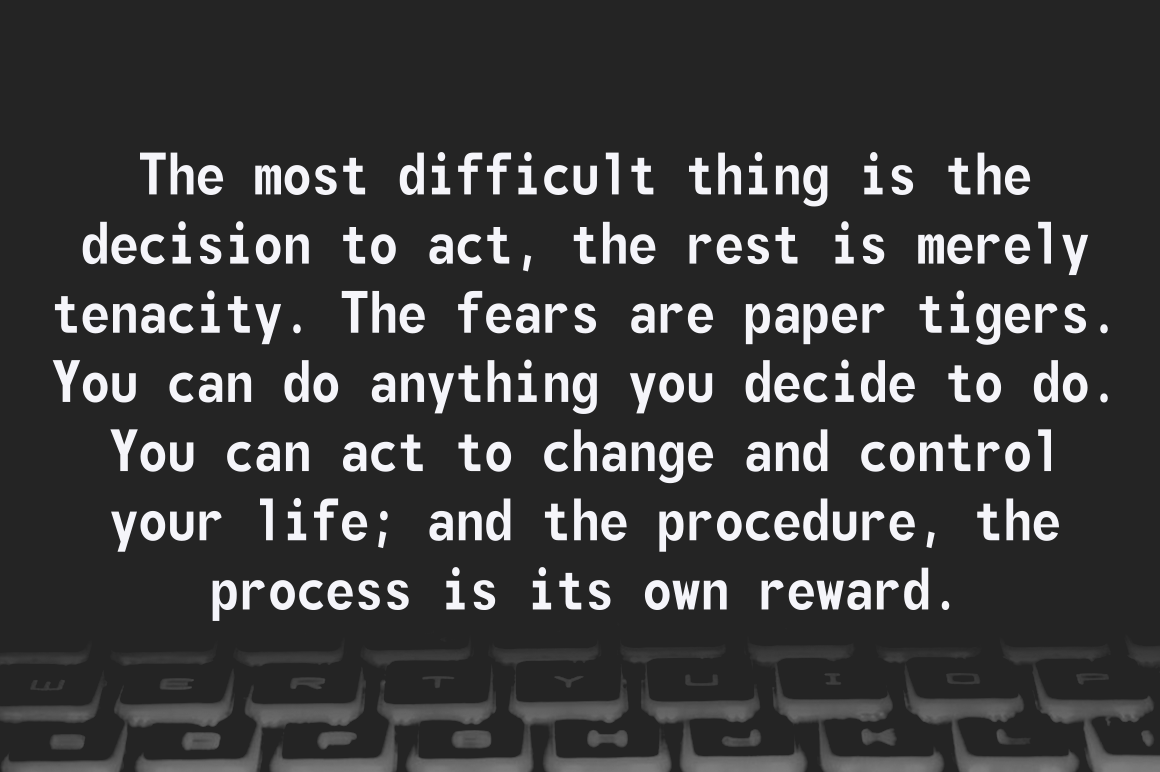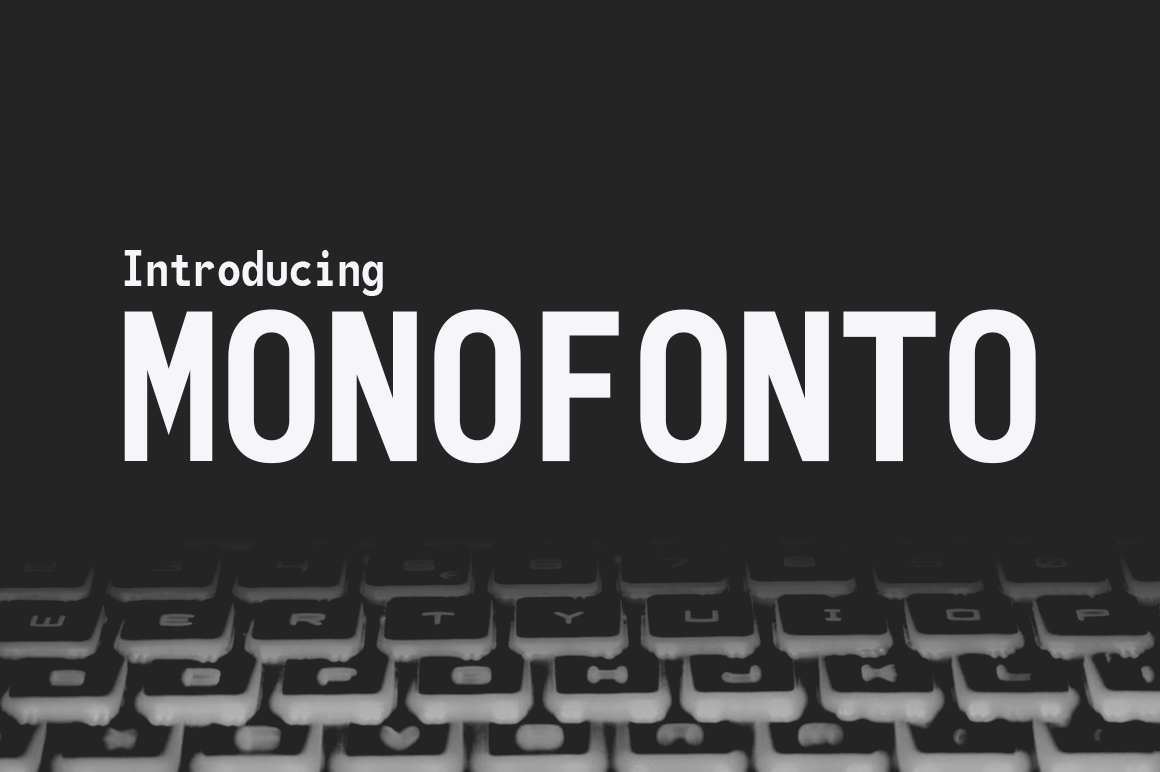
Monofonto
About Monofonto Font
“Monofonto is an unidealistic, monospaced utility font.” This clean sans serif looks stunning in minimal designs, and is legible enough for use in body texts. This free font was created by Typodermic.